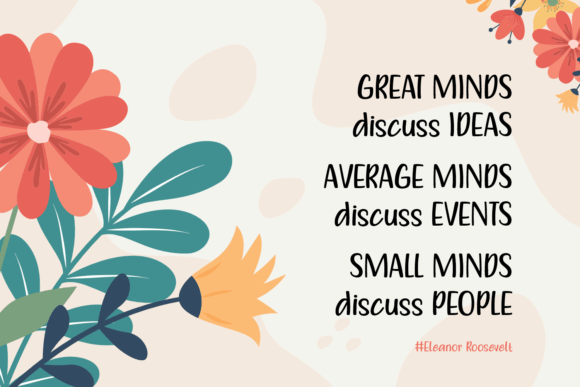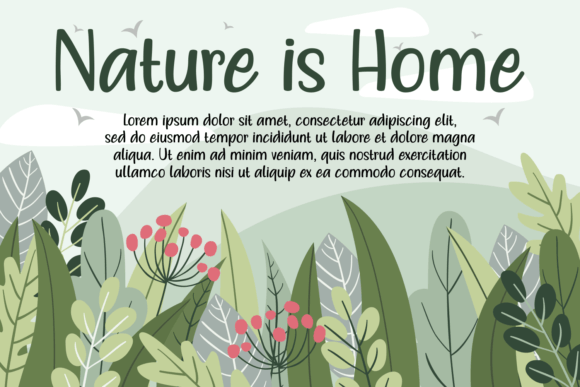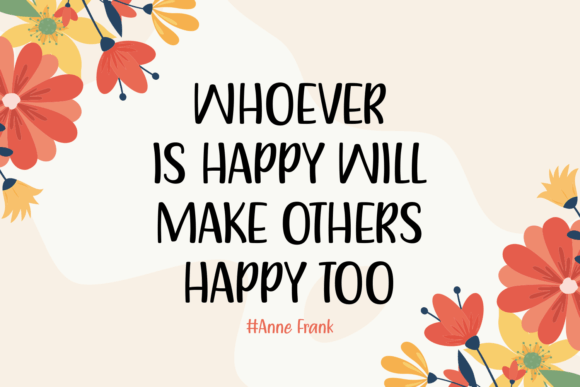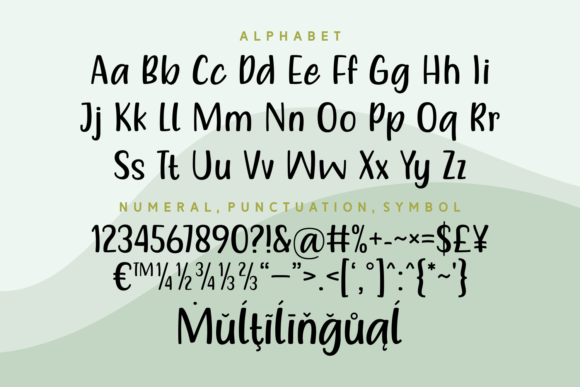
Cute and Unique Font
About Cute and Unique Font
Cute and Unique is a lovely elegant handwritten font. It makes the perfect match for any cards, invitations, quotes, articles, posters, branding, art prints, and many more!